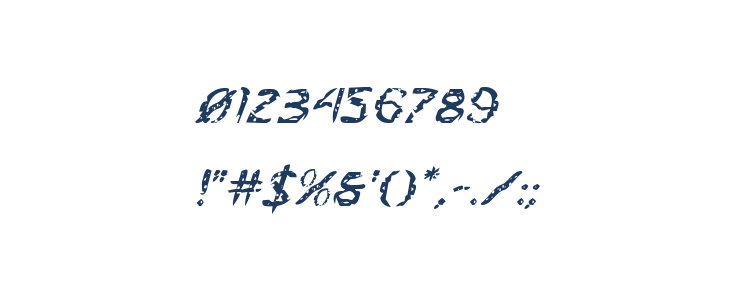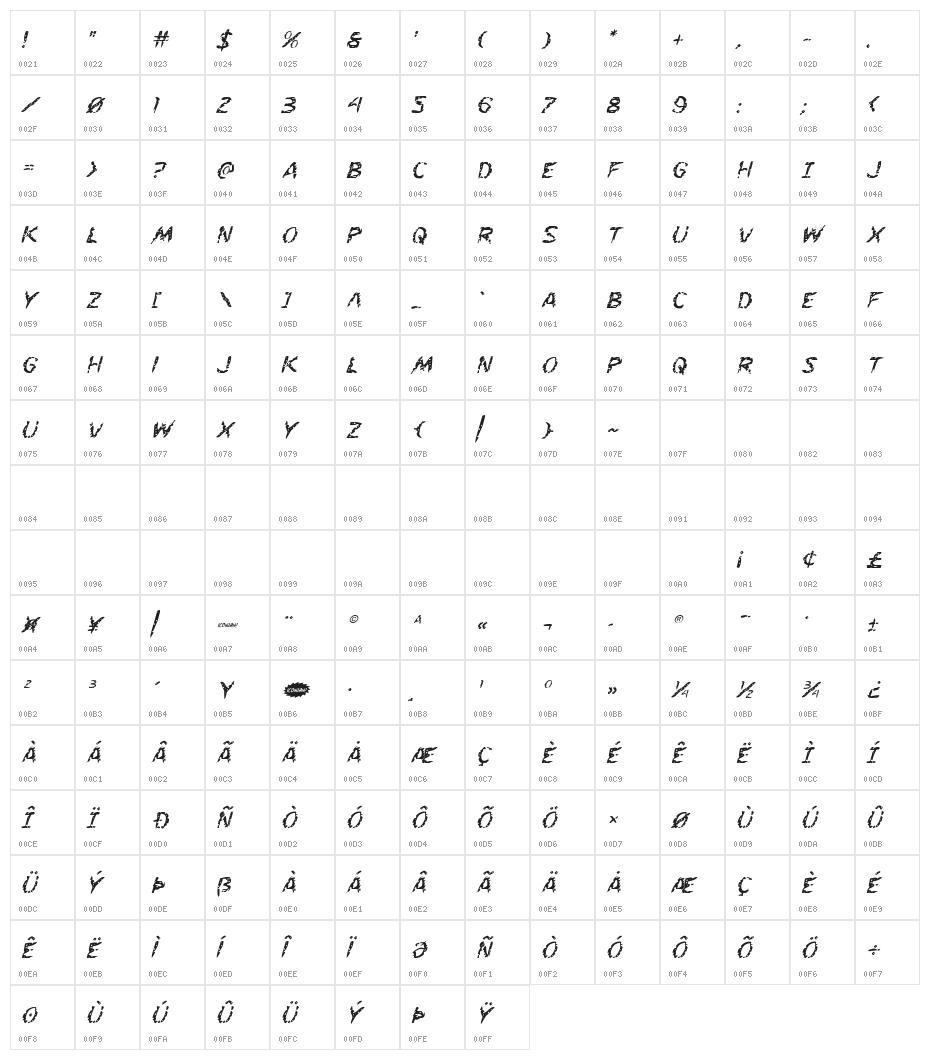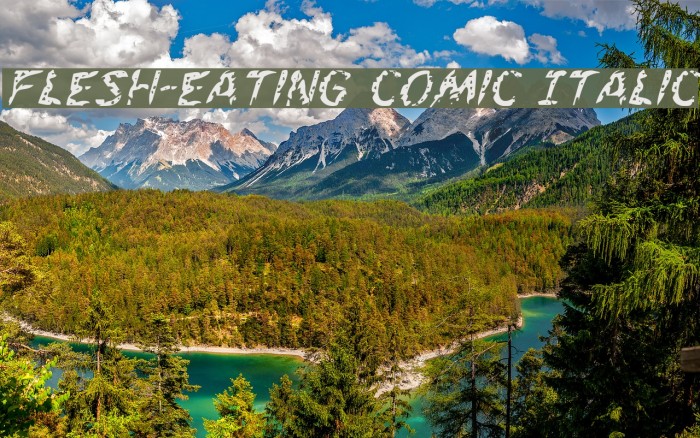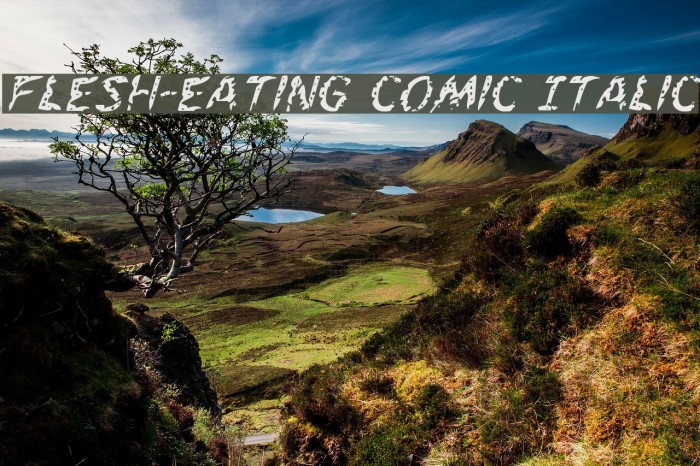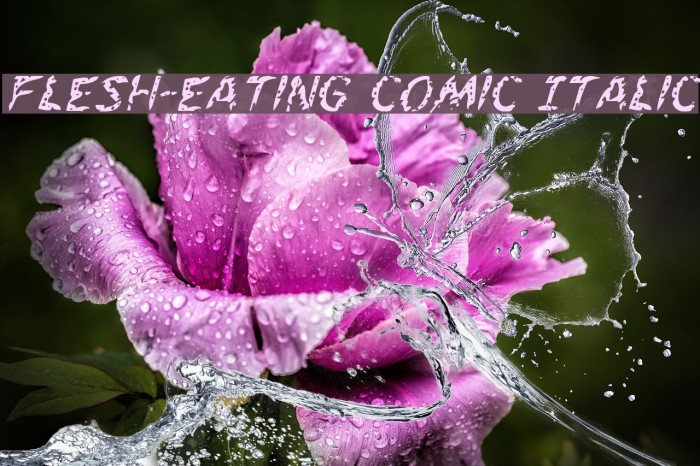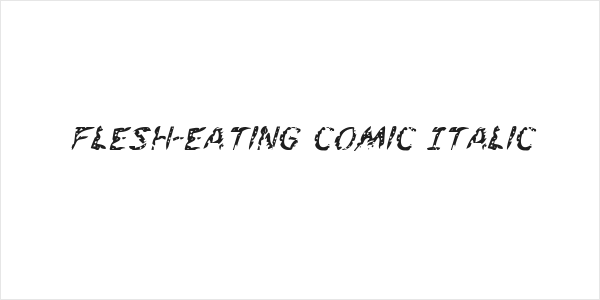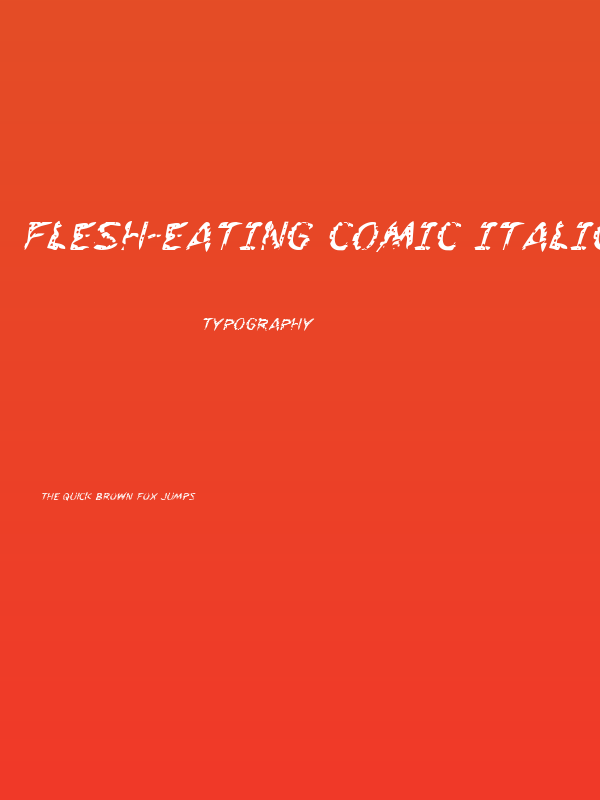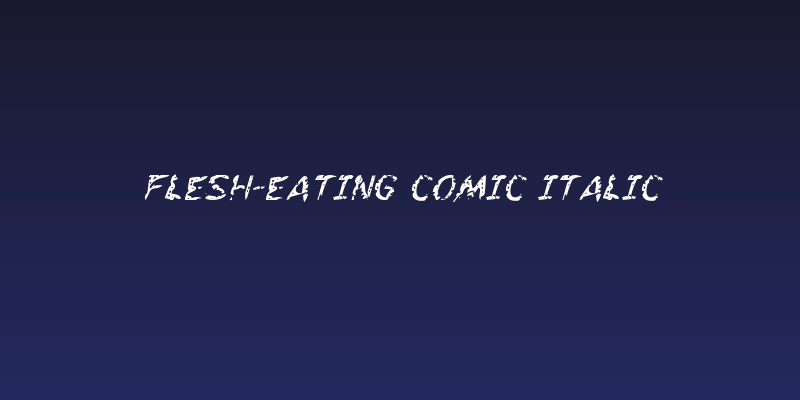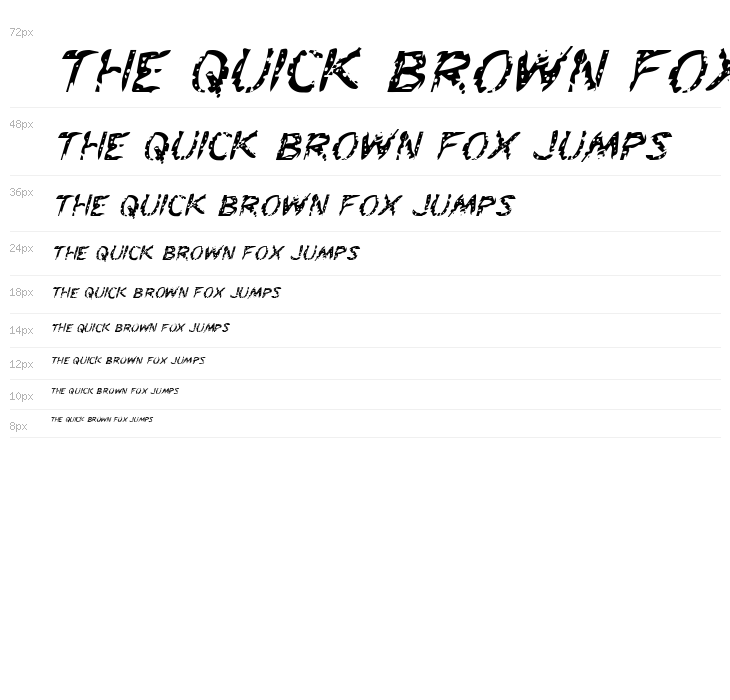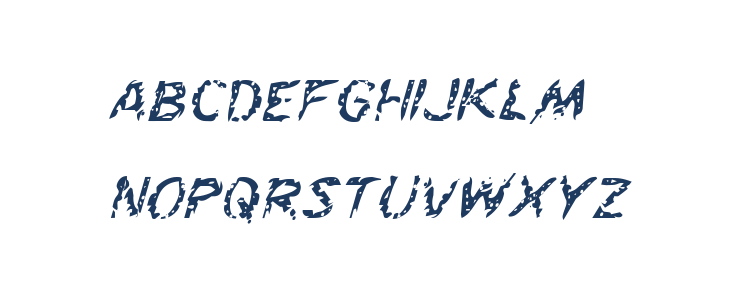
Flesh-Eating Comic Italic Font
Flesh-Eating Comic Italic Description
This font features a bold, distressed style with an italic slant, giving it a unique and edgy appearance. The characters appear as if they have been eroded or eaten away, creating a rugged and raw aesthetic. The uppercase and lowercase letters maintain a consistent design, with jagged edges and irregular shapes that add to the font's chaotic charm. Numbers and special characters follow the same theme, ensuring a cohesive look across all text elements. This font is perfect for projects that require a dramatic and unconventional typeface.
| Proposed Projects | Ideal for horror-themed designs, edgy posters, album covers, and creative branding projects. |